Alfred Kubin Exhibition, Spuren in Salzburg
Ermin Međedović's typeface Fino Sans in use at the exhibition devoted to artist Alfred Kubin at the Salzburg Museum.
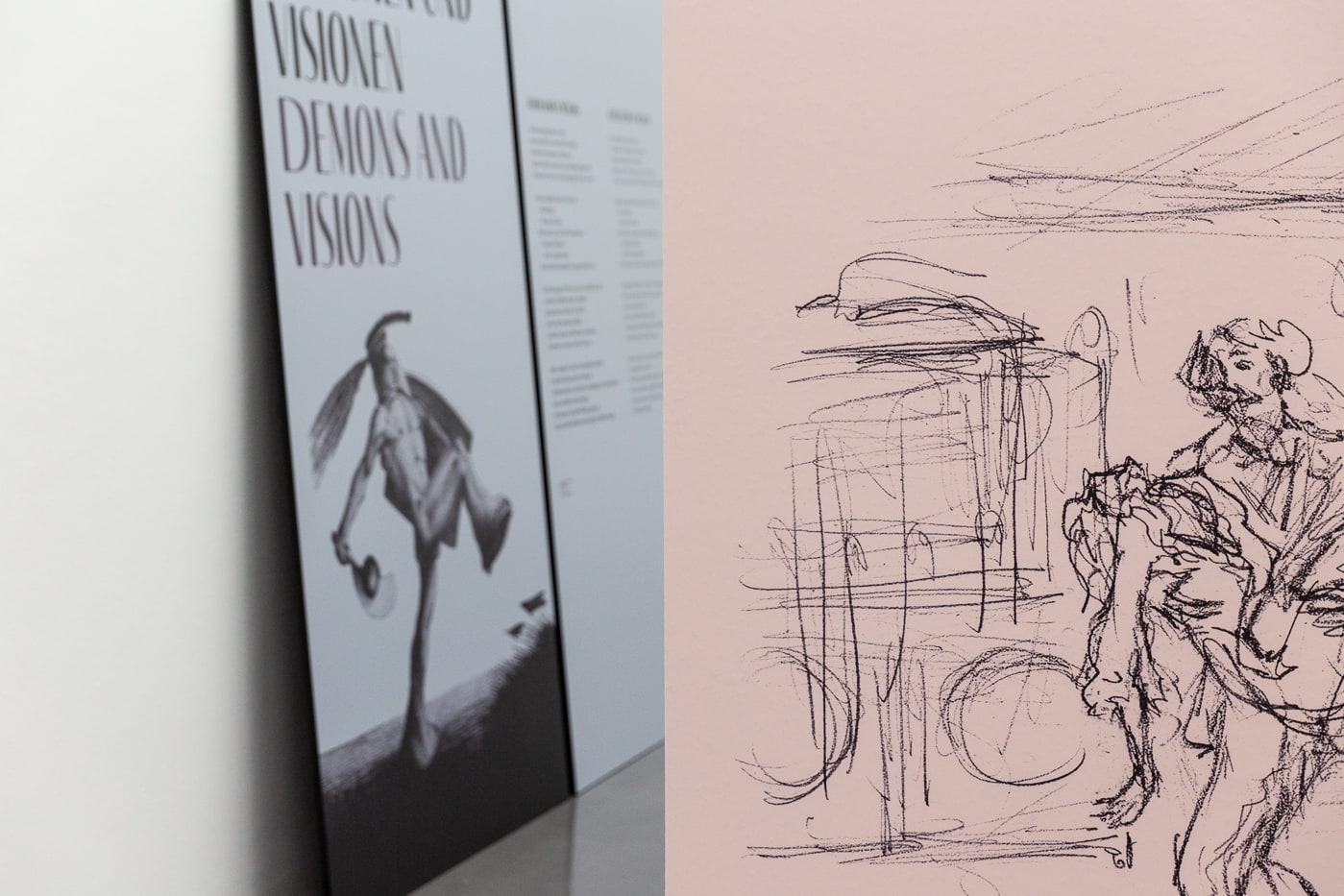
Alfred Kubin (1877–1959) was an Austrian printmaker, artist, and illustrator who spent much of his life in Salzburg. In 2019 the Salzburg Museum devoted an exhibition to his work.
The design studio Mooi was responsible for the exhibition graphics, so for the larger texts they chose Ermin Međedović’s Fino Sans, a contemporary display sans serif with dramatic contrast. This choice was partly inspired by the cover of the first edition of Kubin’s novel Die andere Seite from 1909: “The lettering uses capitals of narrow proportions (interspersed with some wider ones), distinguished by a pronounced stroke contrast. Fino Sans shares several of these characteristics without being retro, and can be regarded as a modern, more straightforward equivalent. The pattern of thick and thin strokes also is a good fit for the pen-written and drawn elements in Kubin’s work.”
Fino Sans is part of a larger family comprised of Fino Stencil and Fino, the serif companion.